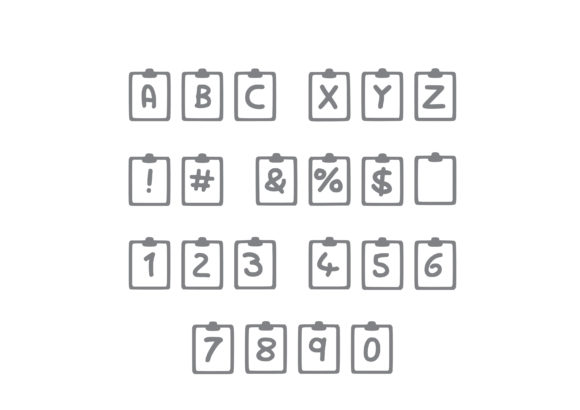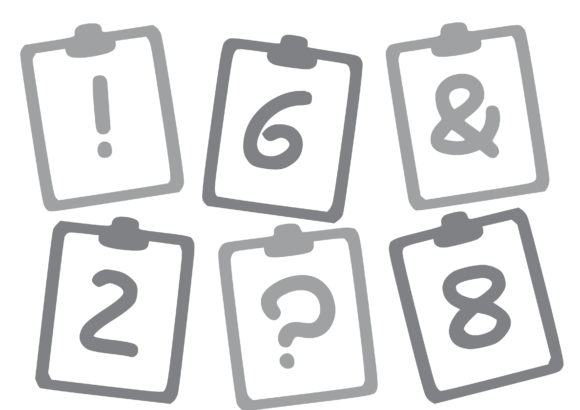
Introduction to Play Clipboard Font
Play Clipboard is a cool and neat decorative font.
Why Choose Play Clipboard Font?
Play Clipboard Font offers exceptional quality and versatility, making it a valuable addition to your design toolkit. Whether you’re creating for personal projects or commercial use, Play Clipboard Font delivers professional results.